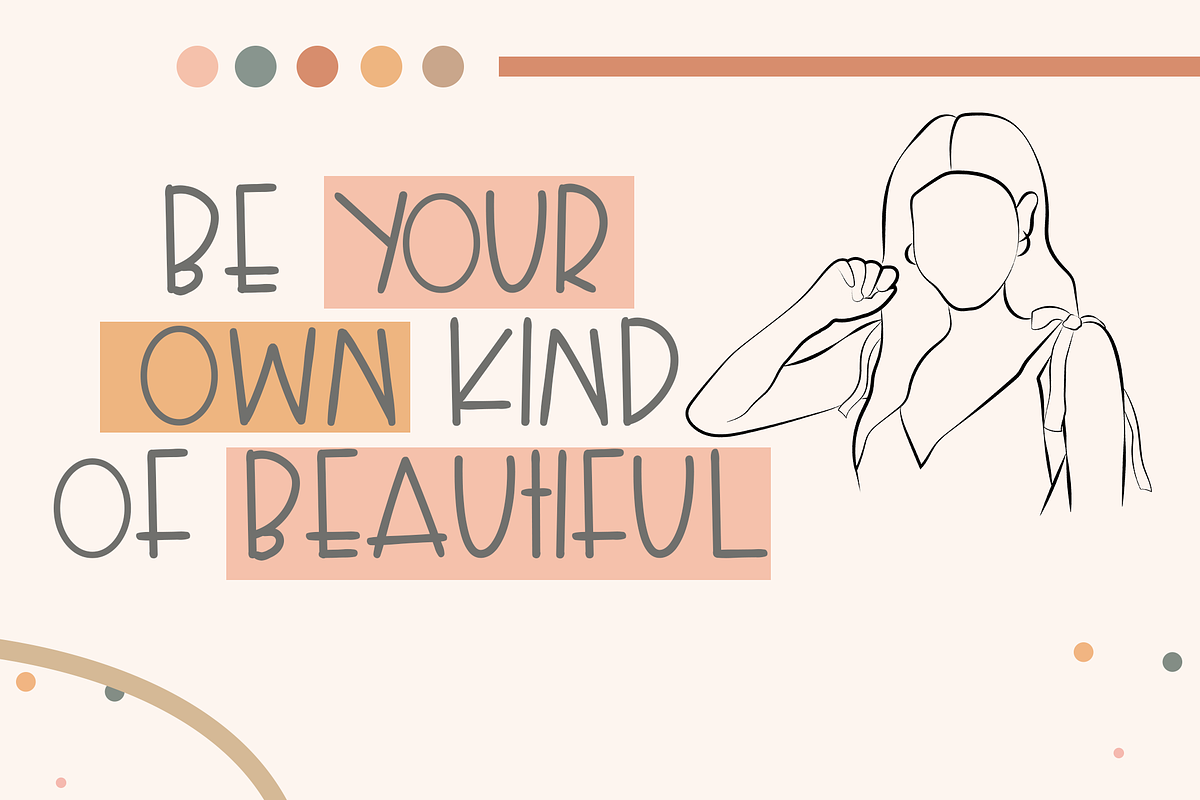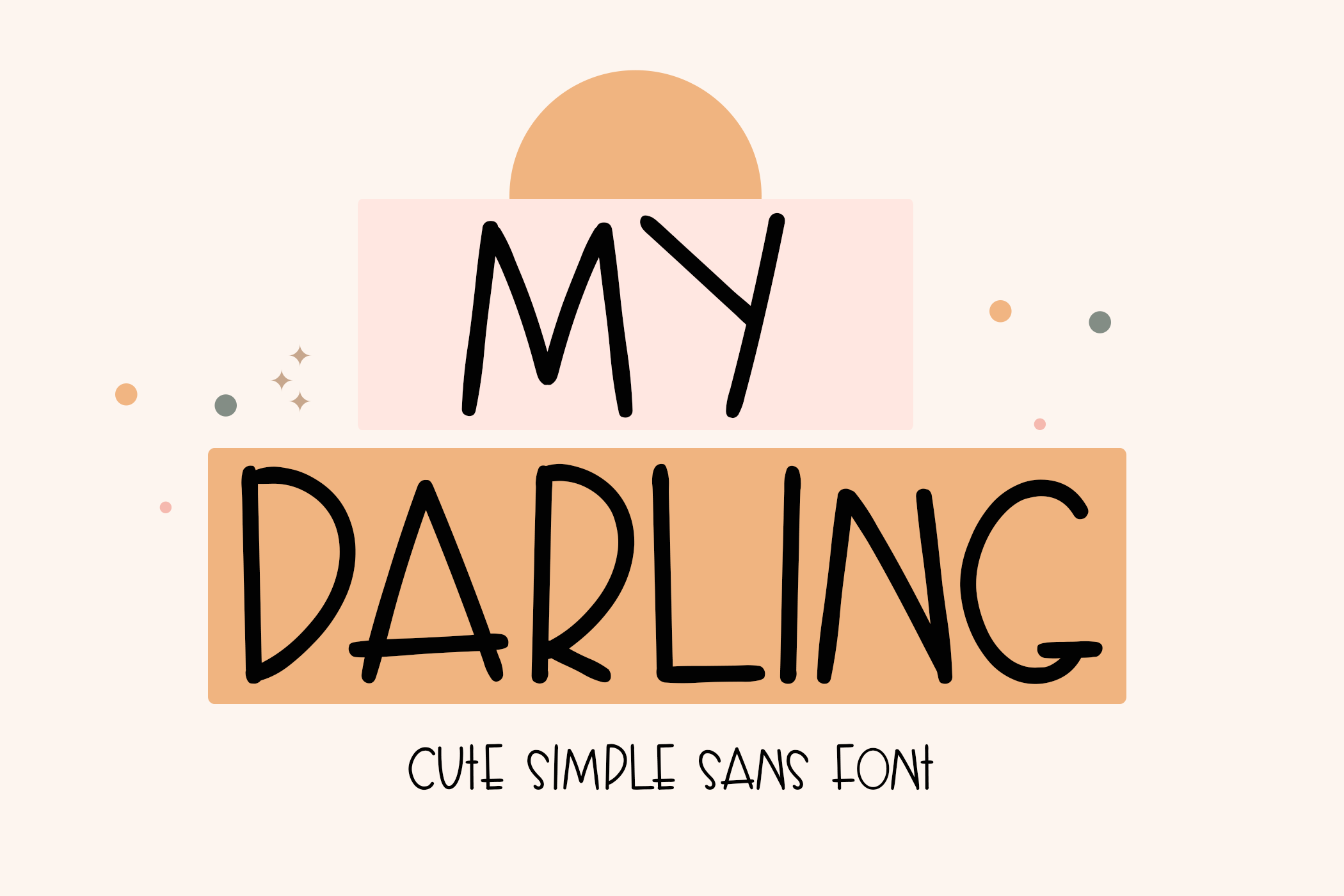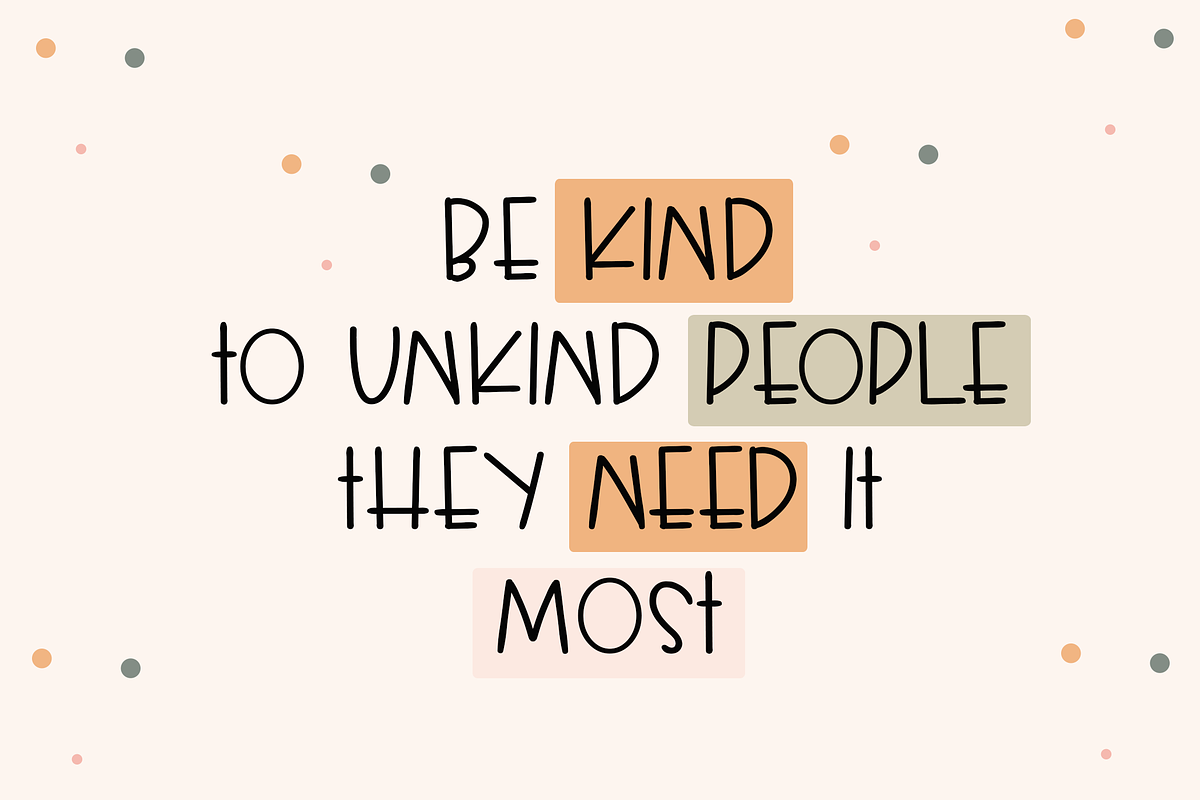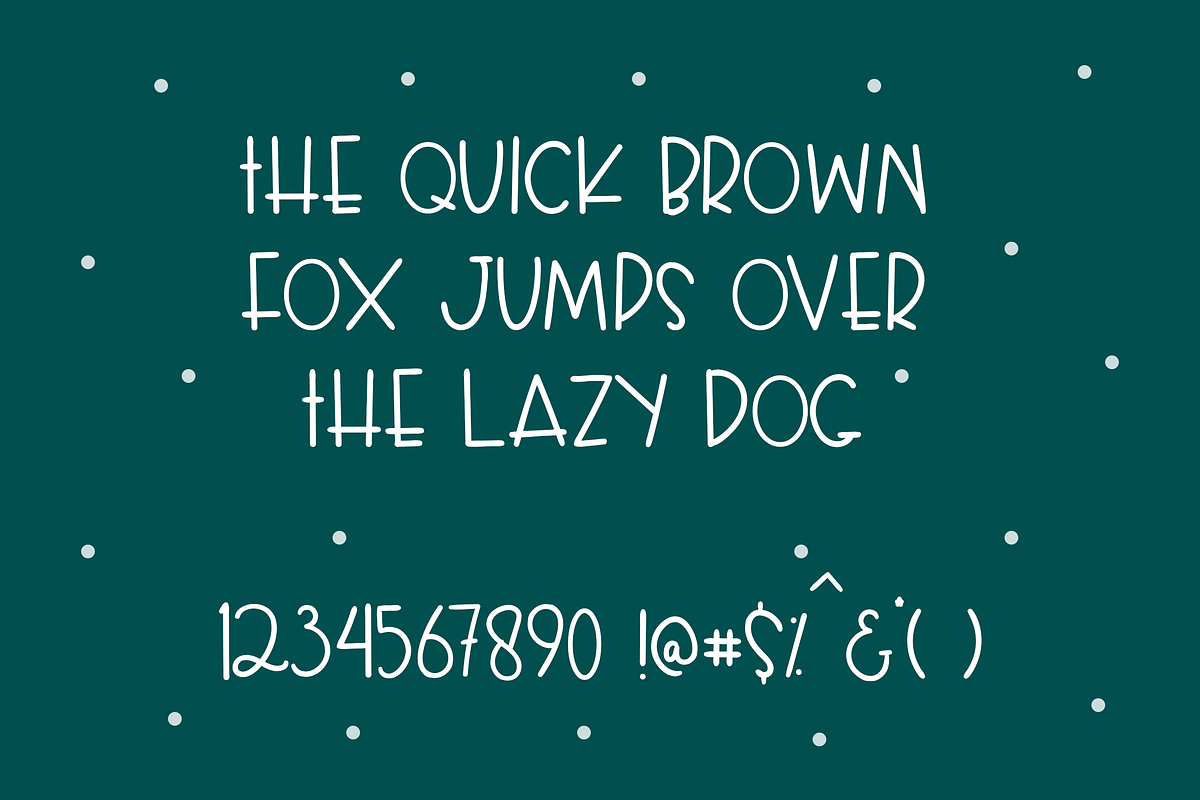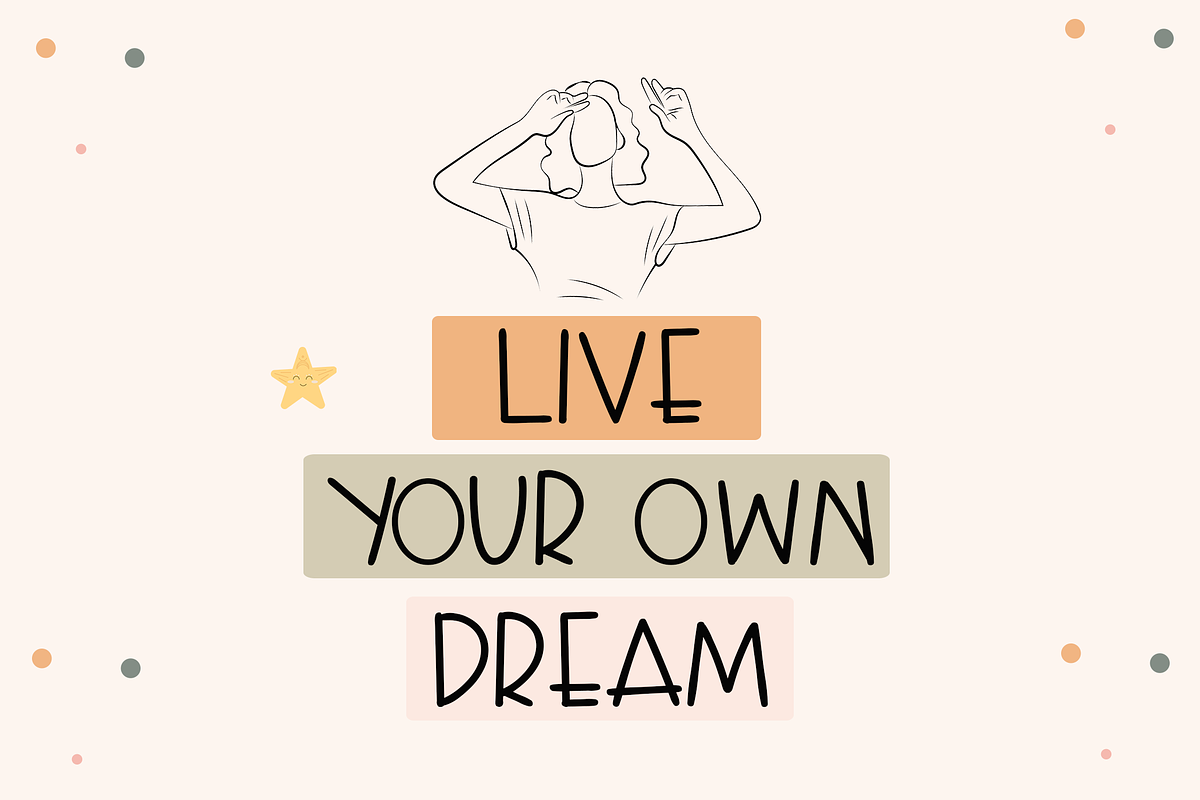
My Darling Font
My Darling is a cool and friendly handwritten font, perfect for children designs, chalkboard quotes, and teaching materials! Its authentic look will add a personal and realistic feel to your designs.